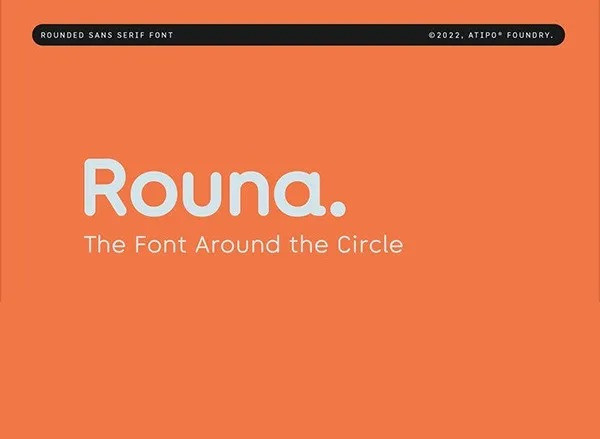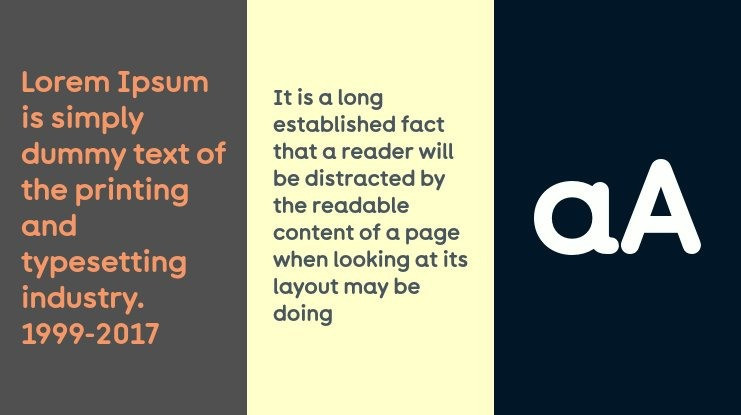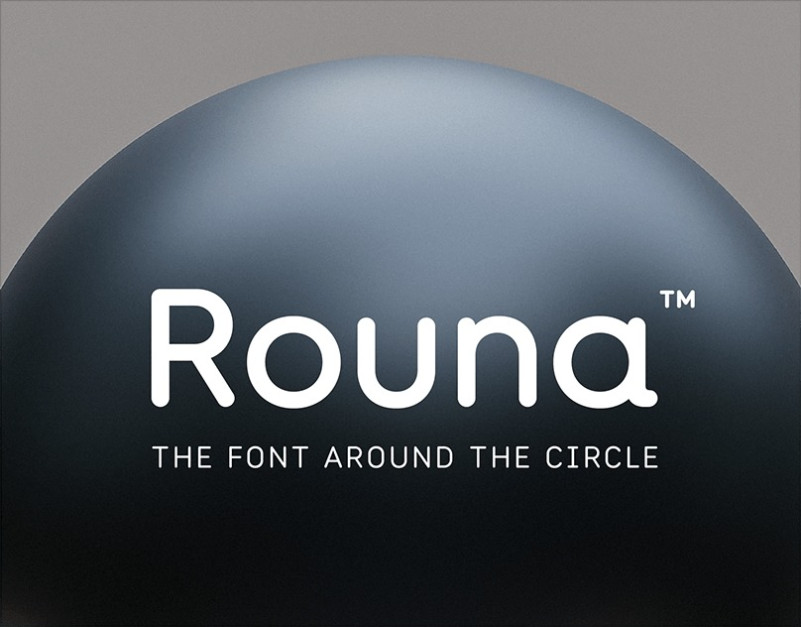
Rouna Font
Introducing Rouna Sans Serif Font, Rouna is a rounded sans serif font that is built around the basic shape of the circle which gives it a fresh, simple and clear appearance. The letter “o” and its derivatives (a, b, c, d, e…) are intentionally close to being a perfect circle. It has a monolinear stroke and low contrast, even in bold weight, and the relationship between the condensed structure of the capital letters and the broad structure of the lower case letters is striking, giving it rhythm and personality.
When the text is written in all capitals, it makes it possible to compose tight headlines or titles and to have the sensation of having two fonts in one. Rouna has a technical yet friendly look, vaguely reminiscent of plastic set letters. We could say that this typeface wears a tie at the architecture studio, but keeps a pair of basketball sneakers in the boot of the car.